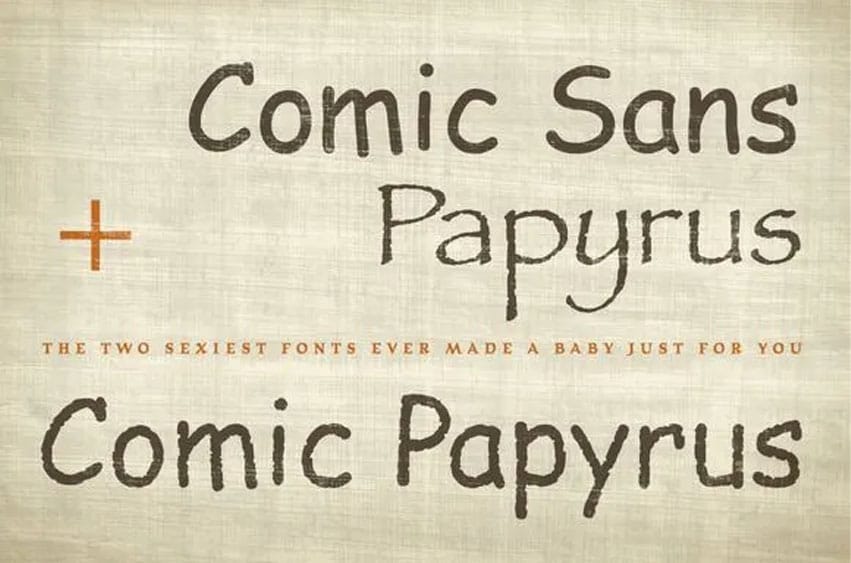
Comic Papyrus Font COMIC FREAKIN’ PAPYRUS! Finally, your most favorites best fonts ever have been SMUSHED together typographically, just as Darwin intended. Cross-bred. Cross-awesomified.
Therefore, instead of spending mountains of hours toggling between working with y our two old favorites, just use your new favorite. Comic Papyrus is a marriage of the timelessly rustic qualities of yesteryears with the obnoxious fun loving cleverness of today’s funny pages. It will make you laugh (like a joke) and cry (like a mummy). Simultaneously!…